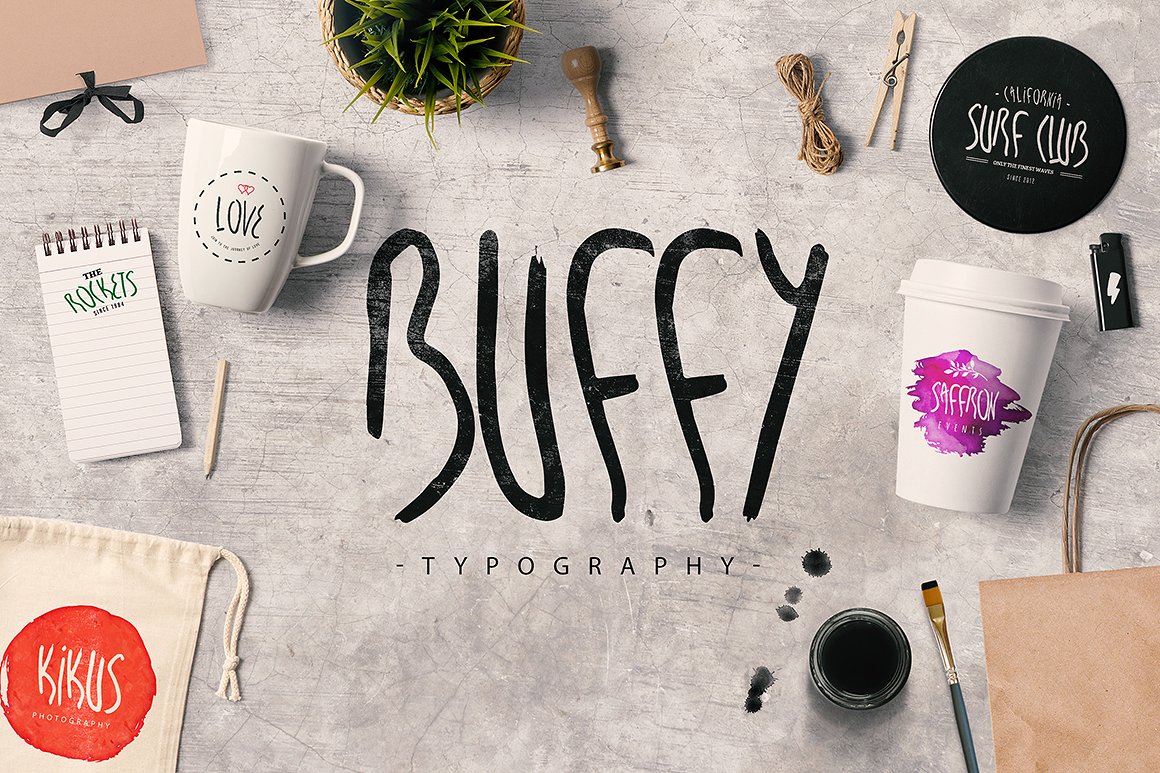
Buffy Script Font
Buffy is a fluid, wobbly display font with fun readable letters. All Uppercase. All numbers. All punctuations. All extensions. All symbols
| Classification: | Brush Fonts, Handwritten Fonts, Script Fonts |